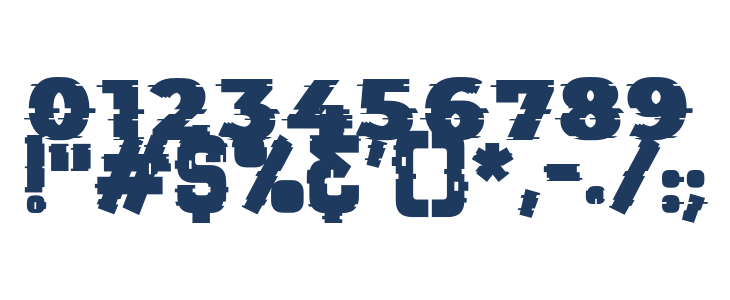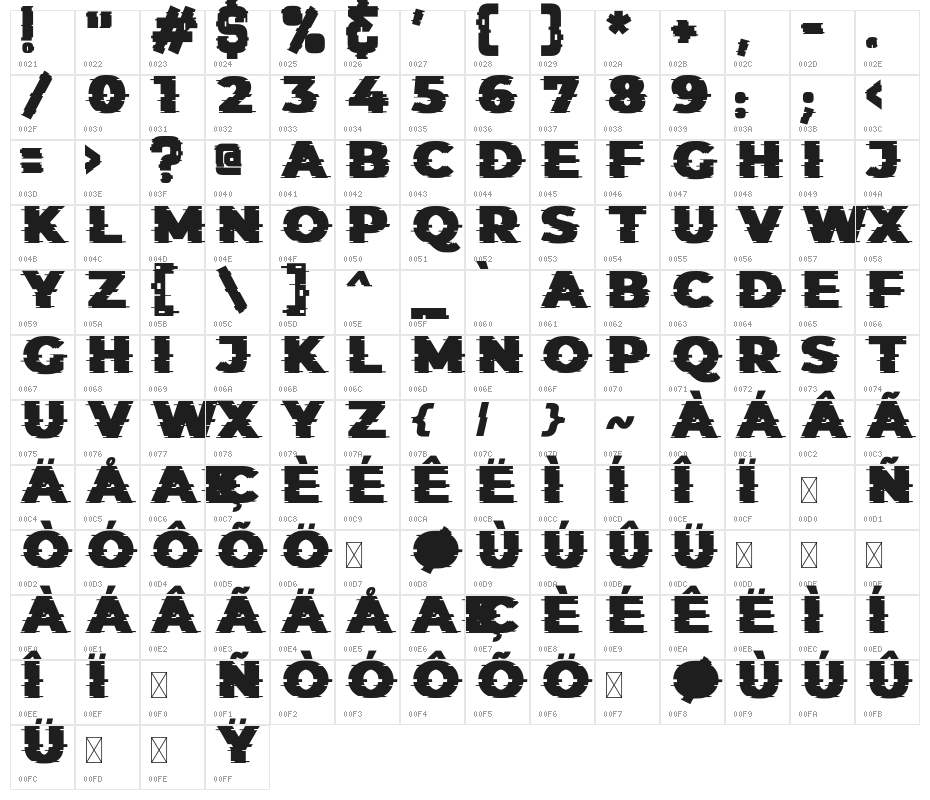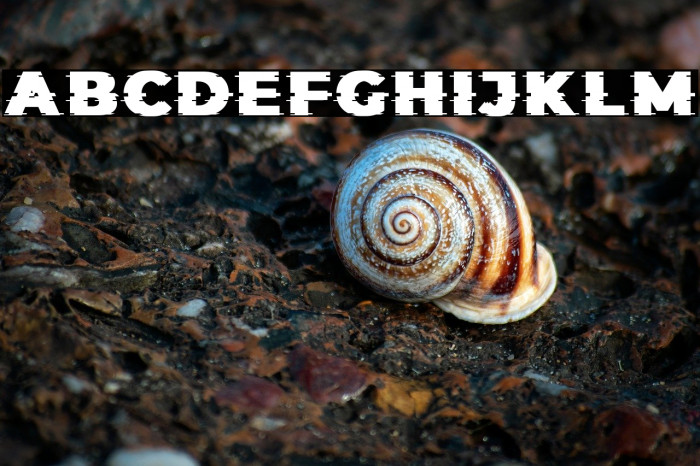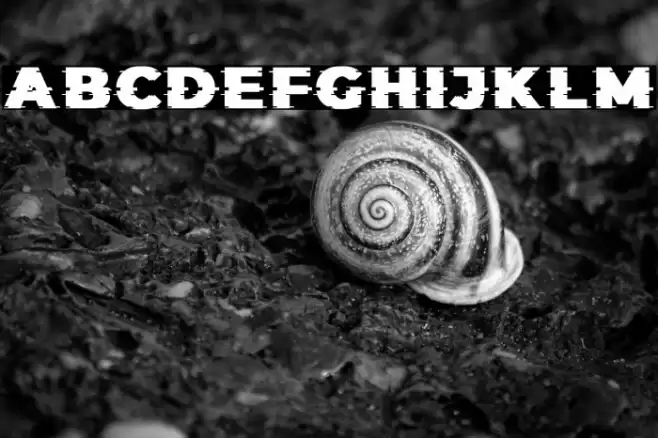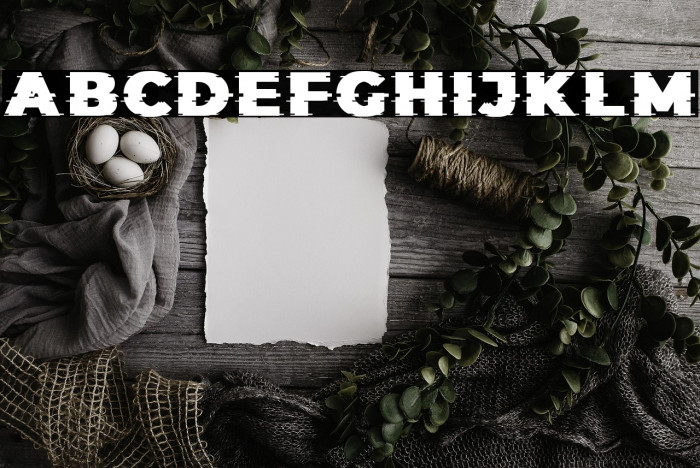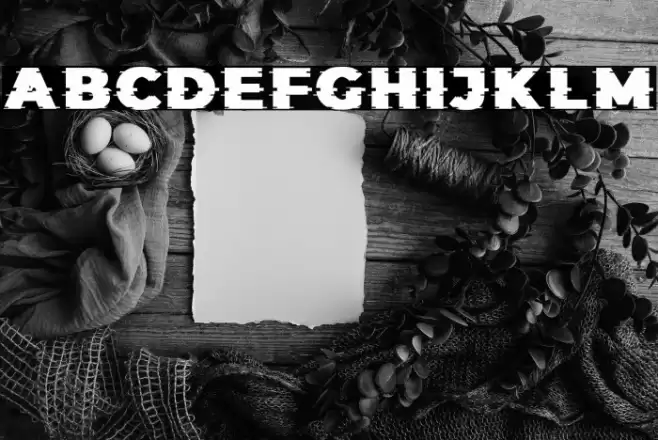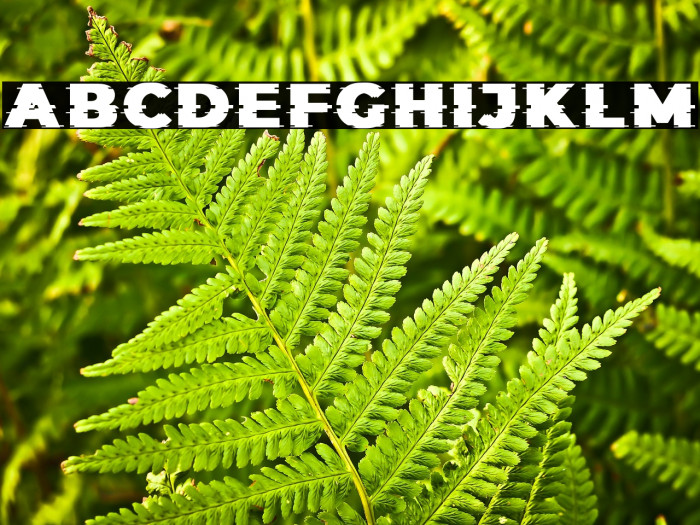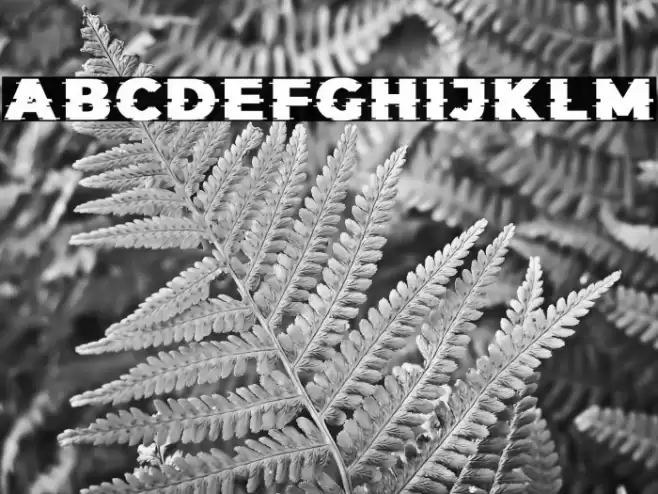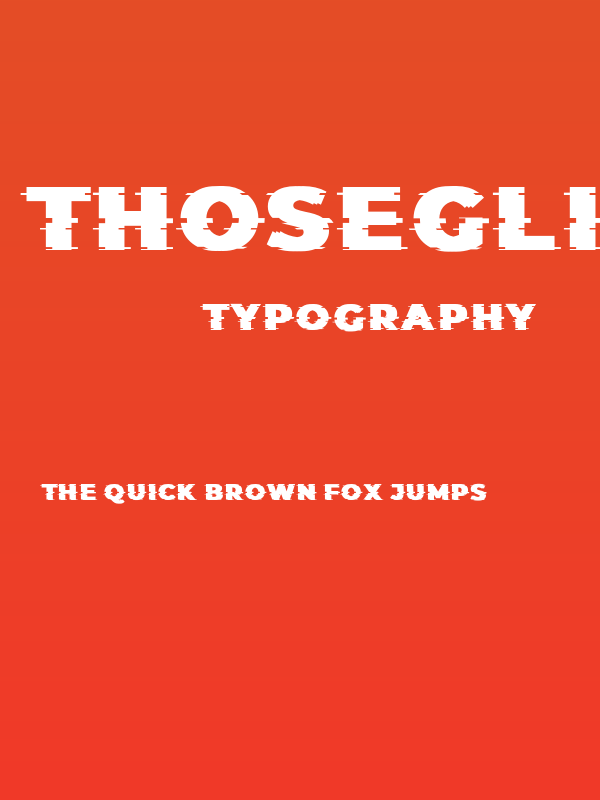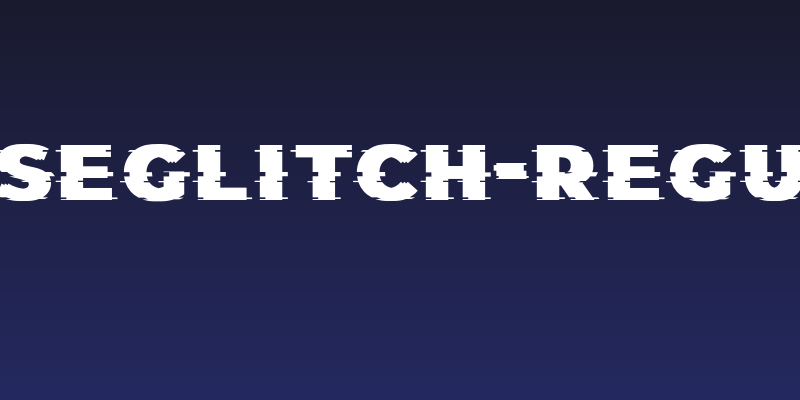
ThoseGlitch-Regular Font
ThoseGlitch-Regular Description
This font features a bold, glitch-inspired design that incorporates digital distortion effects, giving it a unique and modern appearance. The characters are bold and blocky, with irregular cuts and lines that mimic the appearance of a digital glitch. This style is particularly striking and eye-catching, making it ideal for projects that require a futuristic or tech-oriented aesthetic. The uppercase and lowercase letters maintain a consistent style, and the numbers and special characters are equally stylized, ensuring a cohesive look across all text elements.
| Proposed Projects | Ideal for digital art, tech-themed posters, video game titles, and modern branding projects. |